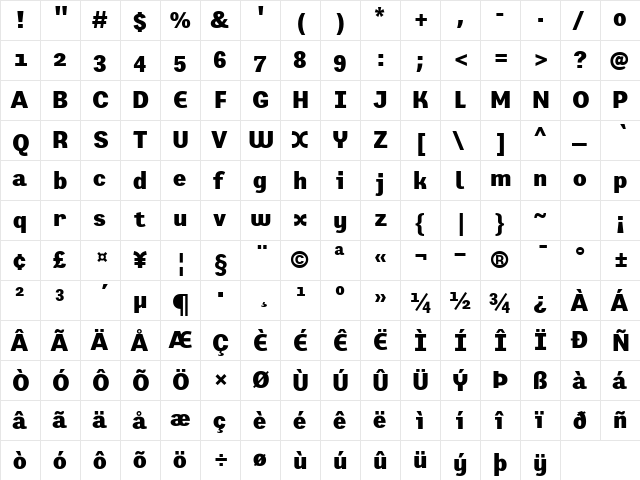
PrefaceBlack Regular
Design Context for PrefaceBlack Typeface
PrefaceBlack takes a measured approach to typography — its balanced proportions and neutral character make it a reliable workhorse for both digital and print work.